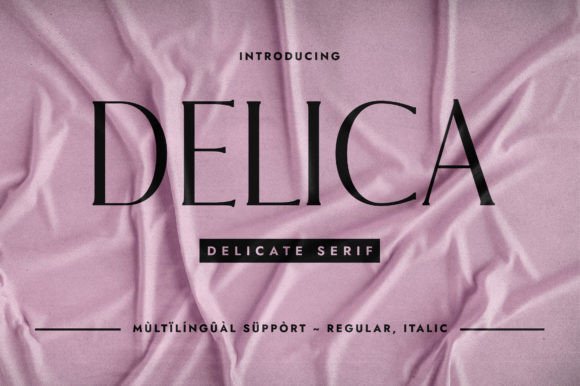
Dive into the world of Delica, a serif typeface that exudes elegance and sophistication. Crafted with meticulous precision, its graceful curves and sharp serifs create an aura of timeless beauty. This font is not merely a collection of letters; it's an expression of artistry that elevates your designs to new heights.
With Delica, you hold the key to unlocking the hearts of your audience. Its delicate and refined structure lends an air of professionalism and trustworthiness, making it the perfect choice for business websites, branding, and marketing materials. Whether you're creating packaging designs that exude luxury or crafting website banners that capture attention, Delica will leave an unforgettable mark.
Imagine your words adorned in the beauty of Delica, each letter a masterpiece that captivates the eyes of your readers. Whether you're designing invitations for a special occasion or creating logos that stand the test of time, Delica transforms your words into works of art.
Fragrance design takes on a whole new meaning with Delica. Its elegant lines and subtle curves evoke a sense of luxury and allure, enhancing the essence of your fragrances. Let Delica be the silent storyteller, conveying the sophistication and uniqueness of your scents through its refined aesthetics.
Delica is more than just a font; it's a versatile tool that adapts seamlessly to your creative vision. Its delicate charm adds a touch of grace to titling, making your headlines and titles stand out with understated elegance. Unleash your creativity and explore the endless possibilities that await you with Delica.